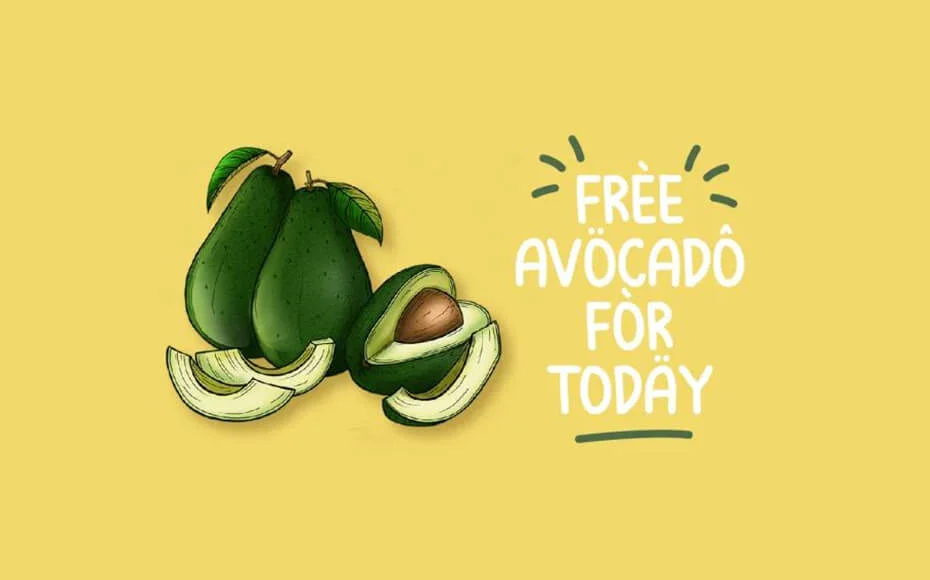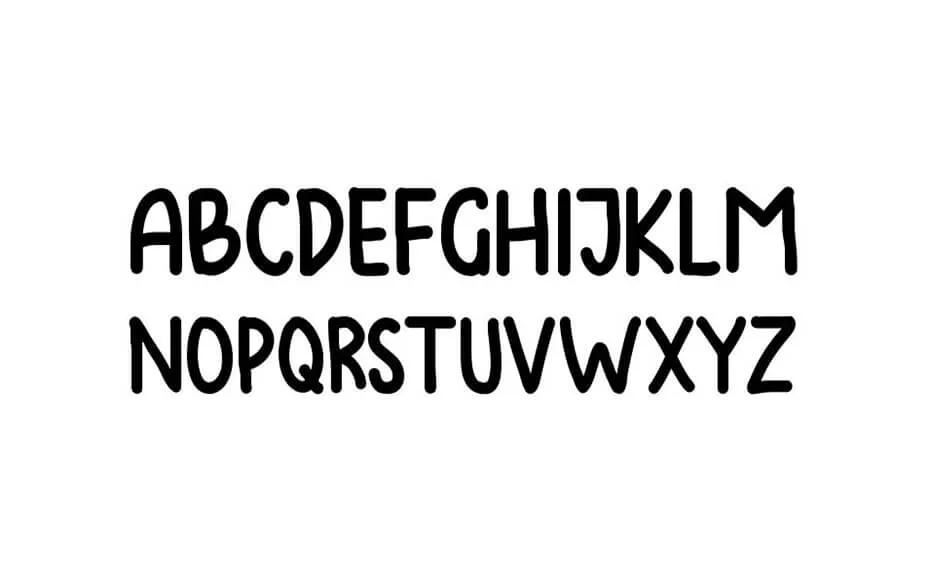
Avocados Font Free Download
Want to put unique touches on your design? Then try Avocados Font, a free brush-lettered typeface that comes with beautiful irregular shapes and baselines.
An Indonesian designer Muammar Khalid took the credit for designing and publishing it for the first time in August 2018.
It is made with a thick marker that has rounded corners. The whole texture is given a bold look which is suitable for large text.
This font is professionally managed by the designer to maintain a clean and natural look. So, it is really impressive for graphic designers to take advantage of it in many places.
The best thing about this font is you will get clarity between all the letters which is really a good thing.
With its help, you can create movie posters, special quotes, magazines, special event cards, and many other places. So, feel free to do your best and try to get your design as you expect.
It consists of a single regular style that possesses Truetype features. This single style has 143 glyphs as well as 1000 units per em. Including uppercase, lowercase, marks, numbers, and some other features.